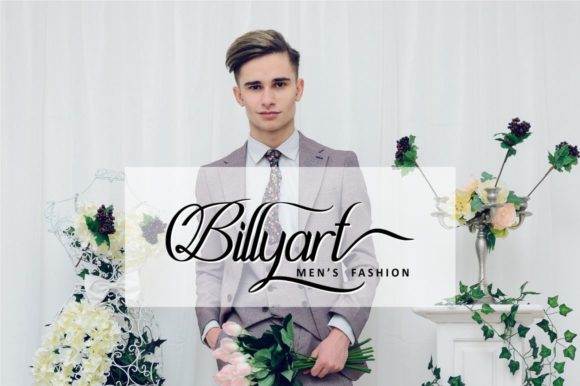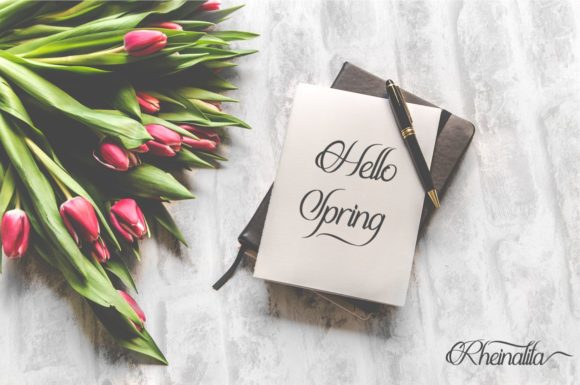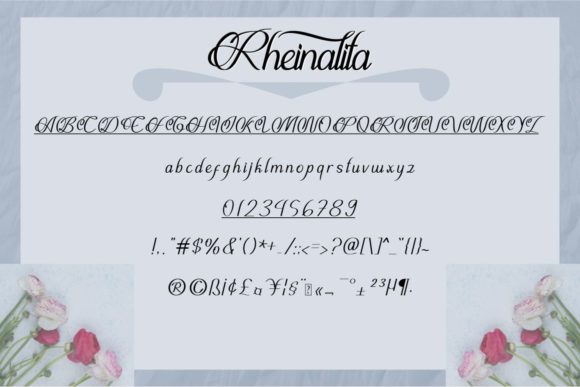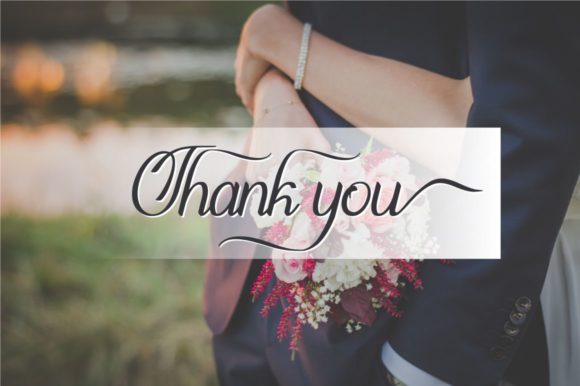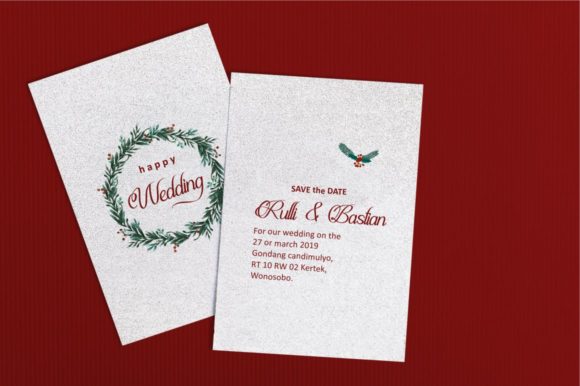
Introduction to Rheinalita Font
Have you ever stared at a blank canvas, wondering which font will bring your creative project to life? As designers, we’ve all been there, searching for that perfect combination of style and personality to capture our audience’s attention. For me, that moment came when I discovered the Rheinalita Font.
With its sweet and playful handwritten feel, the Rheinalita Font is a game-changer for designers looking to add a unique touch to their high-quality designs. Whether you’re working on a creative project or simply need a reliable design resource, this font is sure to inspire. Its transparent background allows for seamless integration, making it a valuable addition to any design arsenal.
Key Features of Rheinalita Font
- Unique, hand-drawn design style suitable for creative projects
- Comes with a transparent background, allowing for flexible design options
- High-resolution font, ideal for print and digital applications at 300 DPI
- Supports a wide range of languages, making it a versatile design tool
- Perfect for designers and artists seeking a high-quality, distinctive font for their projects
Honest Review: Rheinalita Font
I recently came across the Rheinalita Font, and I must say it’s a great addition to any design resource collection. As a designer, I appreciate the effort that goes into creating high-quality fonts like this one.
One thing that immediately caught my attention was the unique aesthetic of the Rheinalita Font. It’s perfect for creative projects that require a touch of elegance and sophistication.
- ✨ The Rheinalita Font supports a transparent background, which is ideal for graphic design and digital art projects.
- ✨ The font is well-suited for both print and digital applications, making it a versatile addition to any design collection.
- ⚠️ The Rheinalita Font may not be suitable for all types of projects, particularly those that require a bold or playful font style.
- ⚠️ Some users may find the font’s elegance to be too subtle or understated.
Overall, I’m impressed with the Rheinalita Font and would recommend it to designers looking for a high-quality, elegant font to add to their collection.
The Rheinalita Font is a high-quality design resource that can elevate your creative project. With its unique style and transparent background, it’s perfect for designers who want to add a touch of elegance to their work.
Tips for Getting the Most Out of Rheinalita Font
Use Rheinalita Font to create eye-catching titles and headings in your designs. Experiment with different font sizes and colors to create a unique look.
Rheinalita Font is perfect for:
- Infographics and presentations
Alternatives to Rheinalita Font
Open Sans is a popular, high-quality sans-serif font ideal for creative projects requiring a clean and modern design. It features a transparent background, making it suitable for use on various design elements. Open Sans is free to download and can be used in both personal and commercial projects.
Compared to Rheinalita Font, Open Sans is more versatile and widely used in the design community. It’s a great choice for designers who want a reliable and professional font for their design resource.
Montserrat is a geometric sans-serif font that’s perfect for designers who want a high-quality font with a strong, urban feel. It features a transparent background and is suitable for use on various design elements, including logos, headings, and body text.
Compared to Rheinalita Font, Montserrat is more modern and edgy, making it a great choice for designers who want to add a touch of sophistication to their creative project.